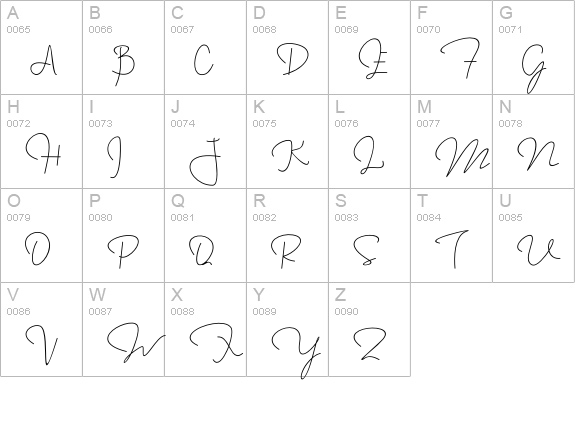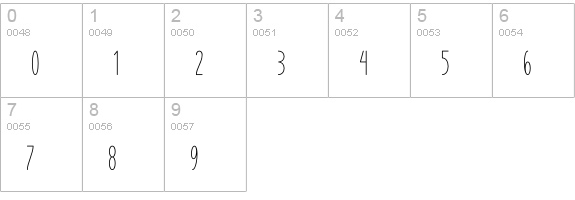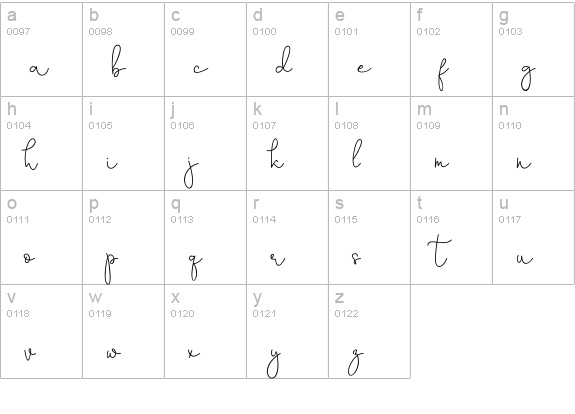
Annisa Script Font Details
Annisa Script is a free for personal use font in the Script > Handwritten category, designed by aldedesign. It has been downloaded 357 times and is available for Windows, Mac and Linux.
Annisa Script is a beautiful and elegant font that exudes sophistication and charm. Its flowing and graceful strokes give any design a touch of luxury and style. This script font is perfect for wedding invitations, logos, branding, and other creative projects that require a touch of elegance.